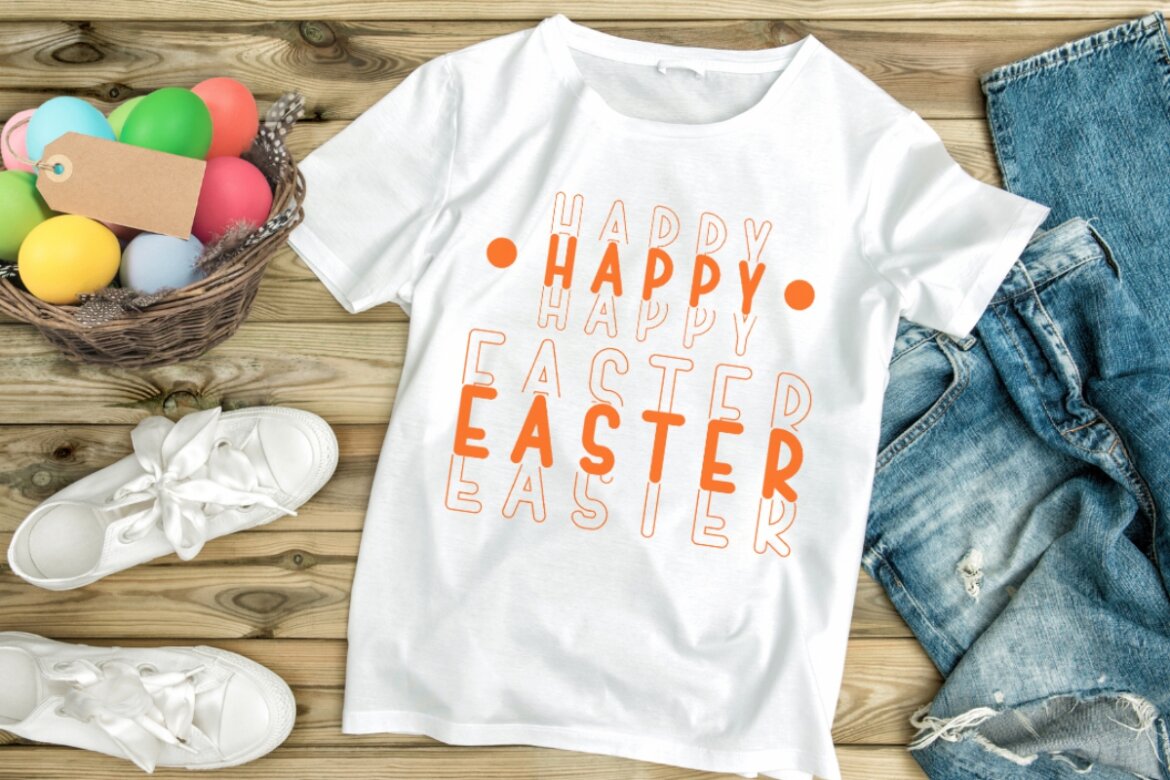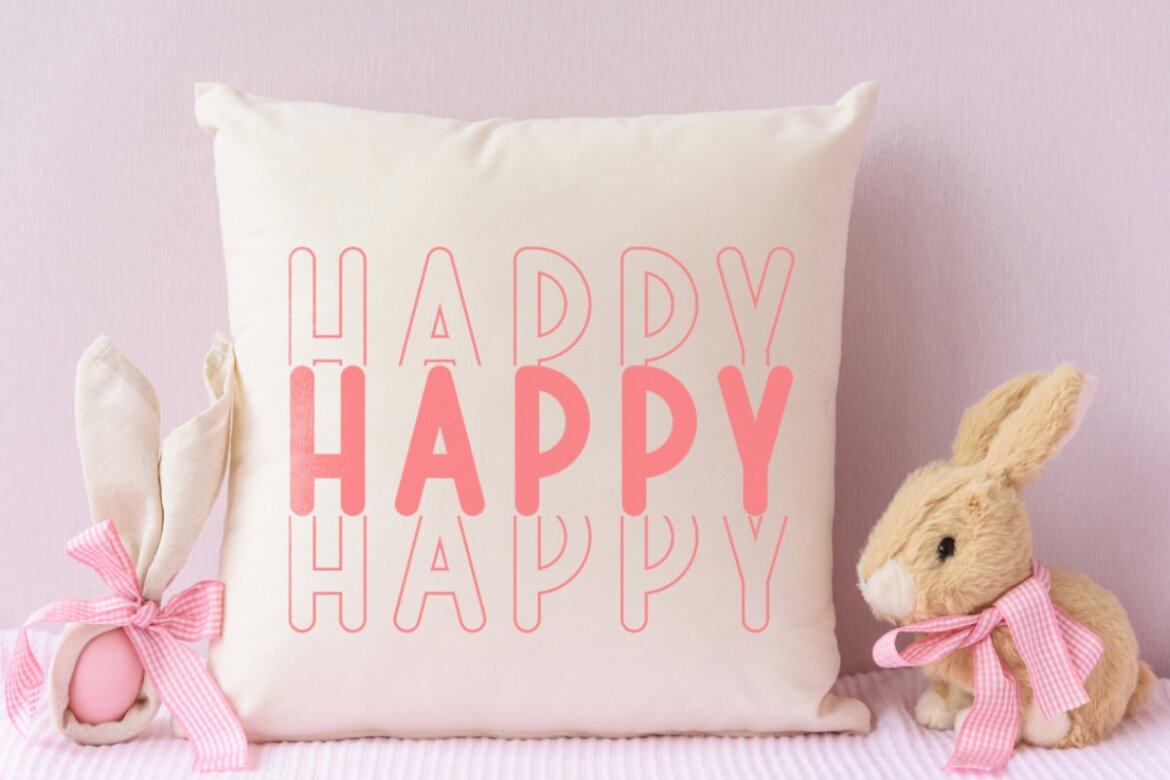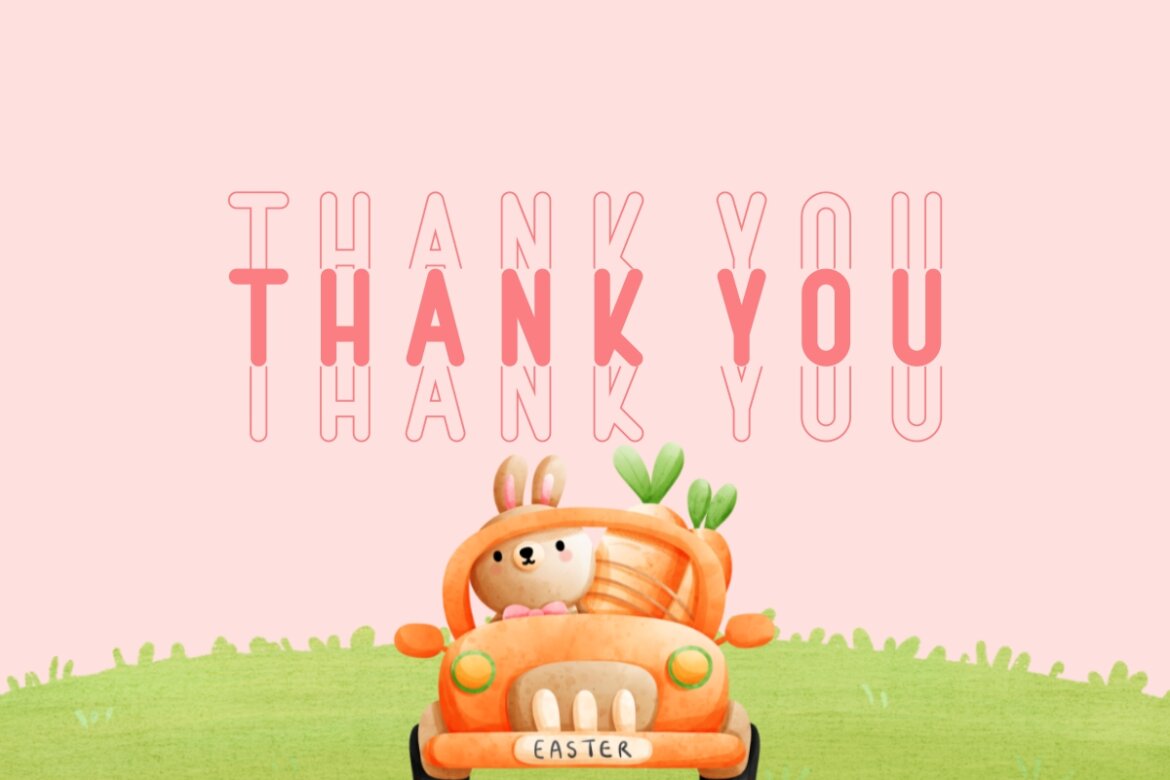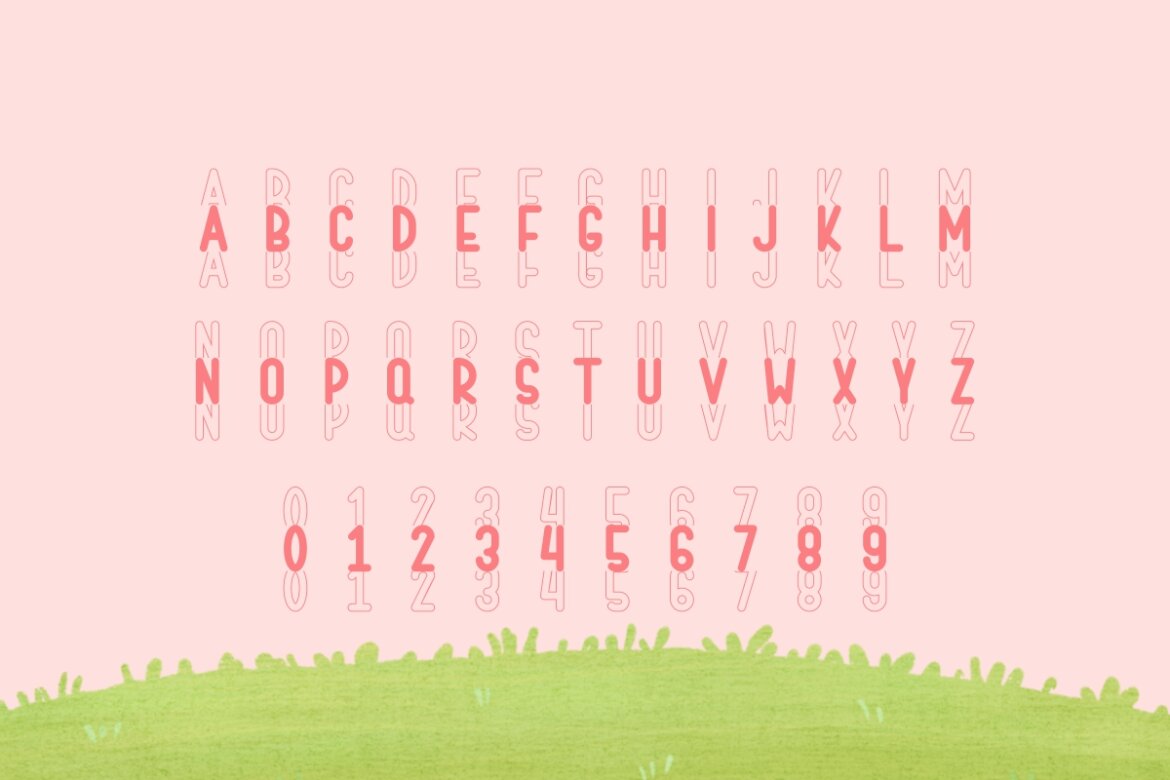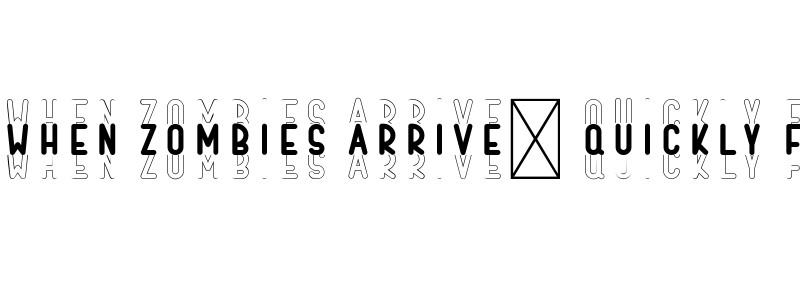
Eastertime - Display FREE Font
Eastertime
Eastertime is a charming and sweet cute display font, designed to bring a lighthearted and playful atmosphere to seasonal and children's designs. Its distinctive letterforms—featuring a charming mix of solid letters with delightful outline versions—create a layered, decorative, and highly engaging look. Perfect for Easter invitations, greeting cards, nursery decor, children's books, packaging, and cheerful branding, this font excels at adding a touch of whimsical, gentle fun. Eastertime’s dual style offers creative versatility for crafting memorable and cute typography.
• dual-layer versatility: includes both solid and outline styles for easy, ready-made layering and decorative effects.
• high creative value: the unique layered feature offers advanced typographical control without needing complex graphic manipulation.
• instant cuteness: effortlessly establishes a lighthearted, cheerful, and childlike aesthetic for any project.
• seasonal focus: ideal for quickly creating engaging easter, spring, or children's themed marketing materials and products.